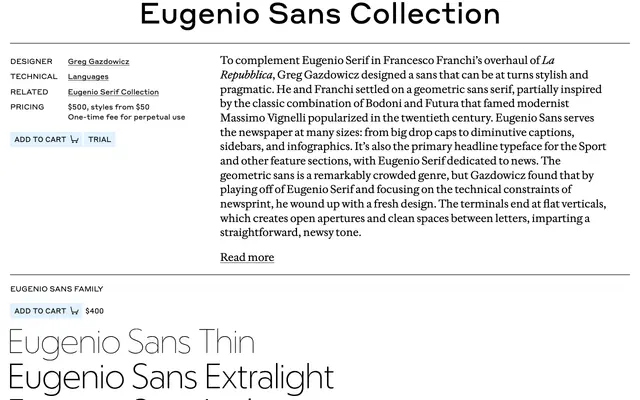
Eugenio Sans Collection
A geometric sans by Greg Gazdowicz drawn for La Repubblica, tuned for newsprint with flat vertical terminals and open apertures.
A geometric sans by Greg Gazdowicz, drawn to complement Eugenio Serif in Francesco Franchi's overhaul of La Repubblica. Partially inspired by the classic Bodoni and Futura combinations popularised by Massimo Vignelli, the family serves the paper from big drop caps down to captions, sidebars and infographics. Flat vertical terminals create open apertures and clean spacing between letters, giving the design a straightforward, newsy tone. Splits into a Display family for headlines and a Text family for smaller sizes.
Commercial Type describe Eugenio Sans as a geometric sans drawn to complement Eugenio Serif in Francesco Franchi's overhaul of La Repubblica, partially inspired by Massimo Vignelli's Bodoni and Futura combinations, with flat vertical terminals and open apertures tuned for newsprint.